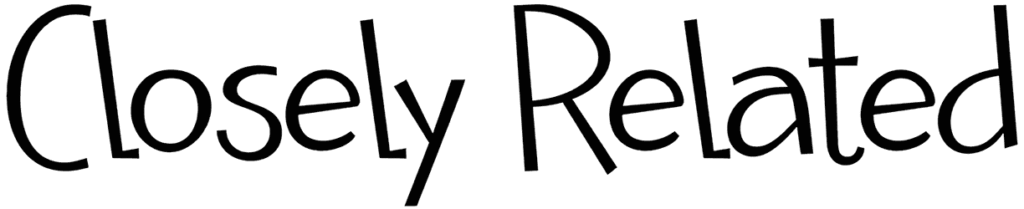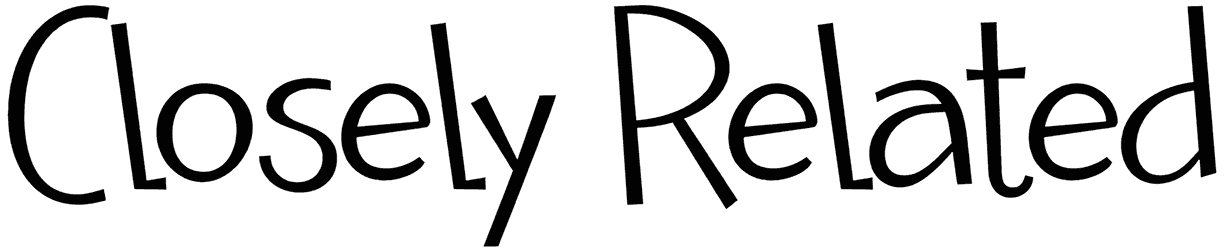
Closely Related Font
Using the fancy, cartoon font, Closely Related, can give your digital art a look that is wonderful. This easy-to-read handwritten font works well for usage in the design of logos, as well as on printed business cards, t-shirts, posters, and flyers.
Although this lovely display font does not include any numerical characters at all. If you think you’re up to the challenge, by all means, give it a go.